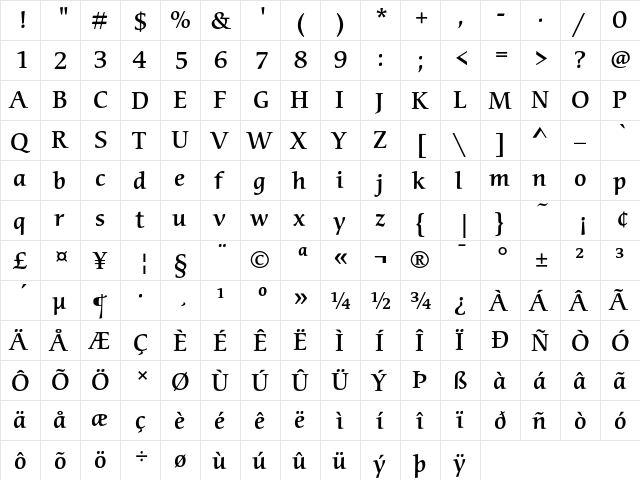
ITC Cerigo Medium Font Preview
ITC Cerigo Medium
ITC Cerigo Medium Font Details
Design Context for ITC Cerigo Typeface
ITC Cerigo is a composed and adaptable typeface that performs quietly and consistently across a wide range of design contexts.